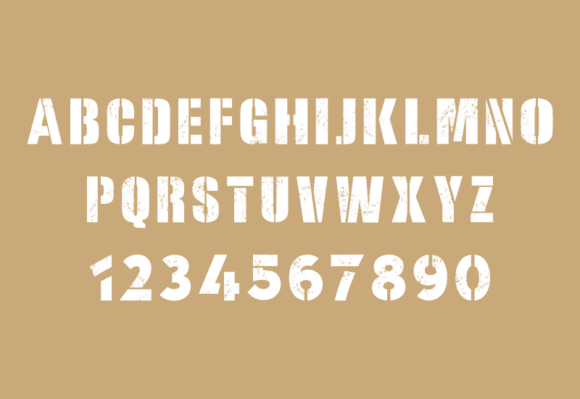
The Unmistakable Charm of Alpha Font: A Designer’s New Best Friend
I still remember the project like it was yesterday. I was working on a bold poster design for a local music festival, and I just couldn’t find the right font to capture the edgy, rebellious vibe of the event. That was until I stumbled upon Alpha Font. Its rough lines and distressed texture immediately caught my attention, and I knew I had found the perfect fit. In this article, I’ll share my experience with Alpha Font, its unique features, and how to make the most of it in your designs.
An Honest Review of Alpha Font
What I Love About Alpha Font
- ✨ Edgy and raw design: Alpha Font’s distressed texture and rough lines give it a unique, bold personality that’s perfect for making a statement.
- ✅ Perfect for bold projects: Whether it’s a poster, album cover, or streetwear branding, Alpha Font adds a touch of grit and rebellion that’s hard to ignore.
- 💯 Highly versatile: Despite its bold nature, Alpha Font can be used in a variety of contexts, from digital designs to print materials.
While Alpha Font is an excellent choice for many projects, it’s not without its quirks. For instance:
- 🤔 Legibility at small sizes: Due to its distressed texture, Alpha Font can be challenging to read at small sizes. It’s best used at larger sizes where its unique features can shine.
- ⚠️ Limited font weights: Alpha Font currently only offers a few font weights, which might limit its use in certain design projects that require a range of weights.
- Explore stylistic alternates and glyphs to add more variety to your text.
The Backstory of Alpha Font
Alpha Font was designed by a team of creatives who wanted to create a font that captured the spirit of rebellion and individuality. Inspired by the raw energy of street art and graffiti, Alpha Font was born. Its designers aimed to create a font that would add a touch of boldness and grit to any design project.
| What is Alpha Font best used for? | Alpha Font is perfect for projects that require a bold, edgy look, such as posters, album covers, and streetwear branding. |
| Is Alpha Font difficult to read? | Due to its distressed texture, Alpha Font can be challenging to read at small sizes. It’s best used at larger sizes where its unique features can shine. |
| Does Alpha Font come with OpenType features? | Yes, Alpha Font comes with a range of OpenType features, including stylistic alternates and glyphs, which can be used to add more personality to your text. |